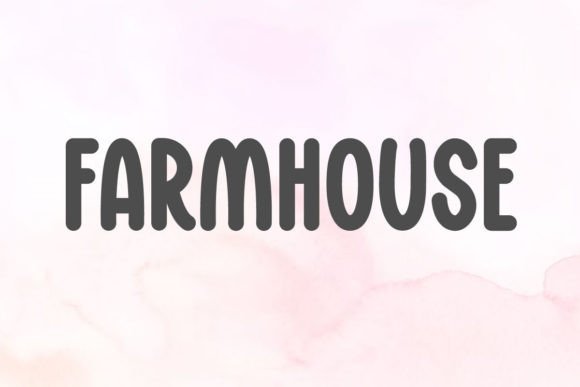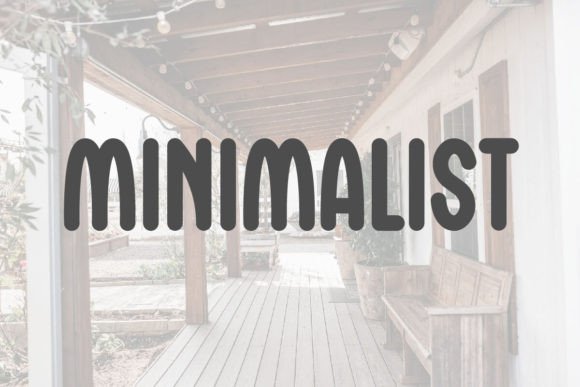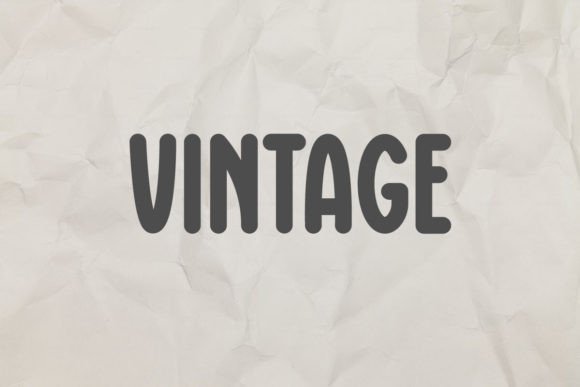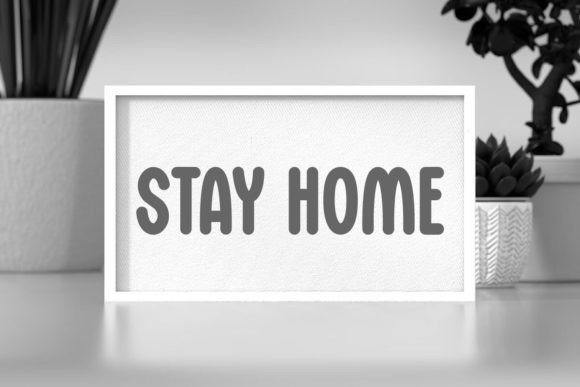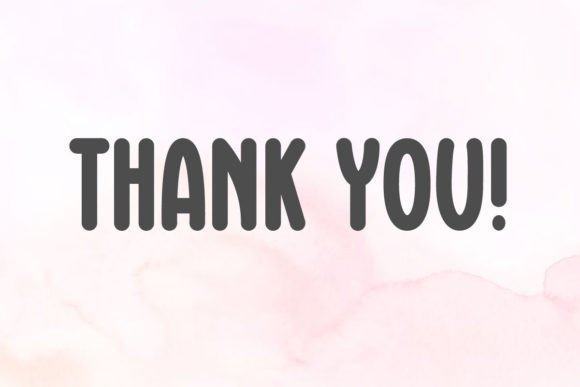
Introduction to Handmade Quality Font
Have you ever stared at a blank page, trying to find the perfect font to bring your creative project to life? I know I have. It’s that moment of frustration, when you want to scream “where is the perfect font?!” But then, like a ray of sunshine, you stumble upon Handmade Quality Font – a modern and cute sans serif font that makes all the difference.
As a designer, you know how crucial the right font can be in making your designs stand out. That’s why we’re excited to share with you the benefits of using Handmade Quality Font in your next project. With its high quality and versatility, this font is perfect for a wide range of applications, from greeting cards to wedding labels, and even t-shirts. And the best part? It’s available for free download, complete with a transparent background, making it easy to use in any design resource.
Key Features of Handmade Quality Font
- Unique, Hand-Drawn Design: This font features a distinctive, handmade aesthetic that adds a touch of personality to any creative project.
- High-Quality, Scalable Vector Graphics (SVG): Available in OpenType format, this font is perfect for designers who need a high-quality design resource for both digital and print applications.
- Transparent Background: Ideal for use on transparent or colored backgrounds, this font’s transparent background allows for seamless integration into any design.
- Perfect for Creative Projects: Add a touch of elegance and sophistication to your designs with this beautiful, handmade quality font, ideal for use in branding, marketing materials, and more.
Honest Review: Handmade Quality Font
I recently stumbled upon the Handmade Quality Font, and I must say it’s been a game-changer for my creative projects. This beautiful font is a design resource that truly stands out from the rest.
- Unique and eclectic design style that adds a personal touch to any project.
- High-quality vectors that are perfect for large-scale prints or digital displays.
- Transparent background makes it easy to layer and combine with other design elements.
While the Handmade Quality Font is an excellent addition to any design arsenal, there are a few limitations to be aware of.
- Some characters may not be available in certain languages, which can be a limitation for global projects.
- The font may not be suitable for body text due to its unique and eye-catching design.
Overall, I’m thoroughly impressed with the Handmade Quality Font. Its unique design and high-quality vectors make it a valuable resource for any creative project. While it may have some limitations, it’s definitely worth checking out for designers looking to add a touch of personality to their work.
Handmade Quality Font is a unique and creative design resource ideal for adding a personal touch to your projects. It’s perfect for anyone looking to create a high-quality, handmade aesthetic.
Handmade Quality Font is perfect for:
- Creating a brand identity for a small business or startup.
- Designing a wedding invitation or other special occasion materials.
- Adding a personal touch to a blog or website.